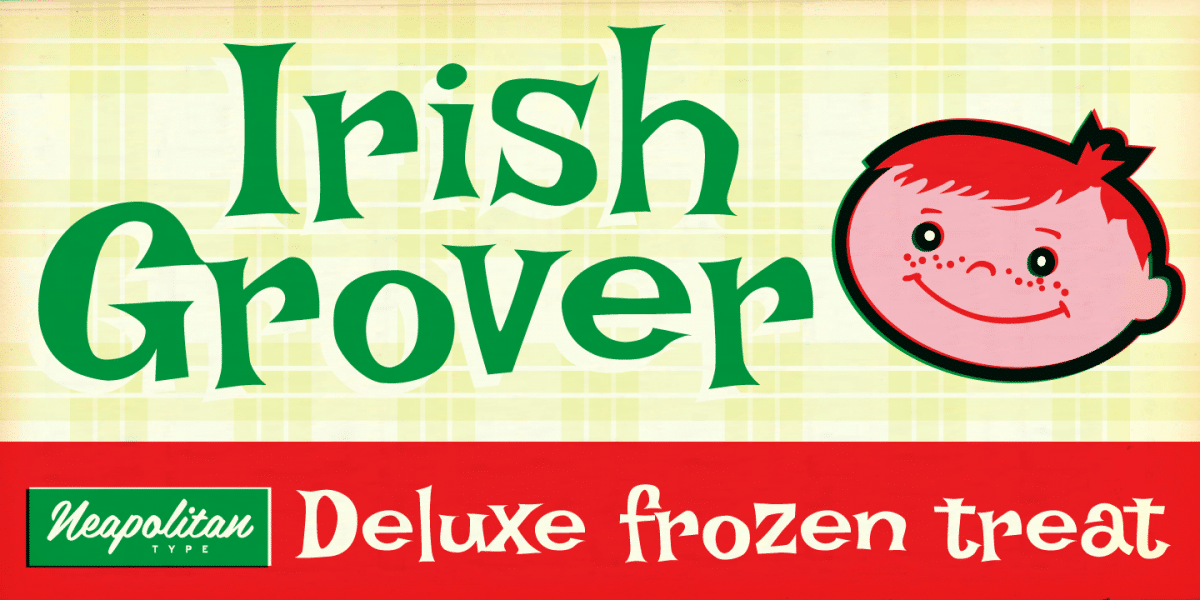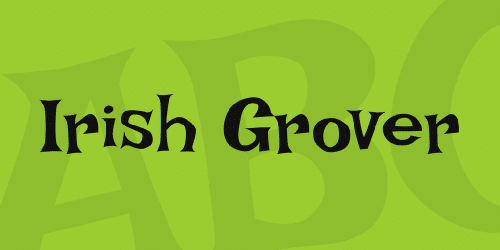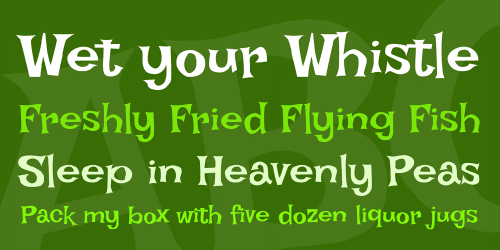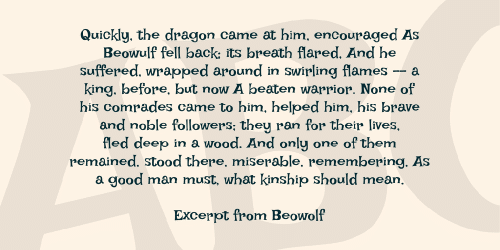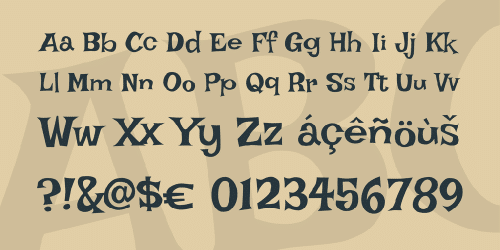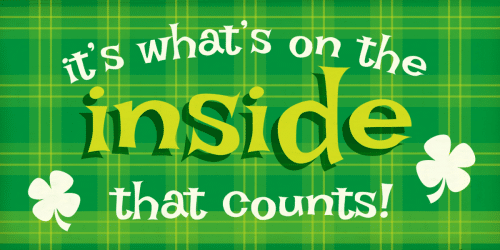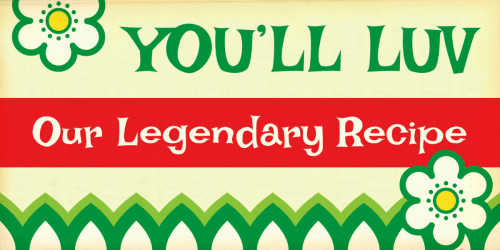
Presenting Irish Grover! No, it’s not a coveted new AKC breed. No, it’s not a tasty seasonal pilsner. It’s a fun, flamboyant, new display font by Squid that’s way better than any of those possibilities. Sure and it’s free for Pete’s sake! And you can’t say that about dogs or beer.